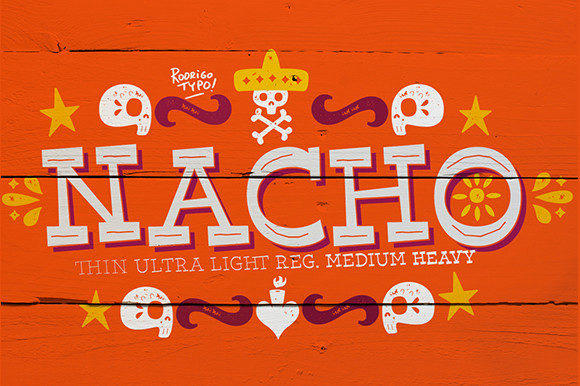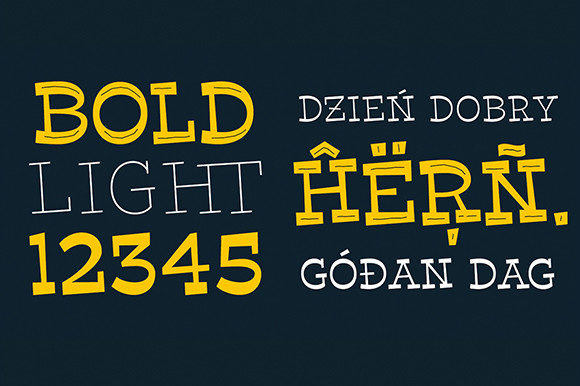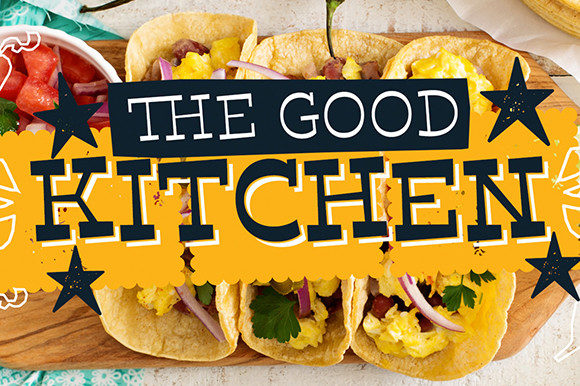
Nacho
Nacho: A Cool and Fun Mexican-Inspired Slab Serif Font
Nacho is a distinctive slab serif font that draws inspiration from Mexican culture, particularly the Day of the Dead celebrations and customs. This vibrant typeface combines vintage charm with a fun and dynamic aesthetic, making it perfect for adding a touch of nostalgic character to various design projects.
Key Features of Nacho
• Cool Design: Offers a trendy and appealing look that resonates with modern design trends.
• Fun Aesthetic: Brings a playful and lively feel to designs, inspired by Mexican festivities.
• Vintage Style: Evokes a sense of nostalgia with its retro-inspired letterforms.
• Dynamic Character: Features energetic and expressive letterforms that bring designs to life.
• Slab Serif Structure: Incorporates the characteristic thick, rectangular serifs typical of slab serif fonts.
• Cultural Inspiration: Draws from rich Mexican traditions, particularly the Day of the Dead.
Ideal Uses for Nacho
Nacho’s unique characteristics make it particularly well-suited for:
• Mexican-themed event promotions and posters
• Day of the Dead celebrations and artwork
• Restaurant menus and branding for Mexican cuisine
• Cultural festival graphics and signage
• Vintage-inspired designs with a Latin American twist
• Fun and dynamic headlines or titles
When incorporating Nacho into your designs, consider these tips:
• Use for headlines or short blocks of text to maximize its fun and dynamic impact
• Experiment with vibrant colors to complement the font’s Mexican-inspired style
• Take advantage of its vintage look for projects that require a touch of nostalgia
Nacho is an excellent choice for designers looking to add a cool, fun, and culturally rich slab serif font to their typographic toolkit. Its ability to evoke the spirit of Mexican celebrations while maintaining a vintage charm makes it stand out in the world of typography. Whether you’re working on logo designs for Mexican-inspired brands, creating layouts for cultural events, or developing content that requires a touch of festive nostalgia, Nacho offers the perfect blend of coolness and cultural depth.
Furthermore, Nacho’s dynamic style allows it to shine in various contexts. From vintage-inspired designs with a Latin American twist to more playful layouts that need a touch of cultural flair, this font can elevate your projects. Its fun yet vintage style works particularly well in designs that require a lively and nostalgic mood.
In conclusion, Nacho is a font that truly captures the essence of Mexican celebrations with a cool, vintage edge. Its ability to work well in both festive, culturally-inspired projects and more modern designs that require a touch of nostalgia showcases its flexibility. For those looking to add a dash of Mexican-inspired coolness to their work, Nacho can even enhance themed creations with its unique, dynamic style. It’s the perfect choice for designers seeking to add tons of nostalgic character with a fun, cultural twist to their designs.